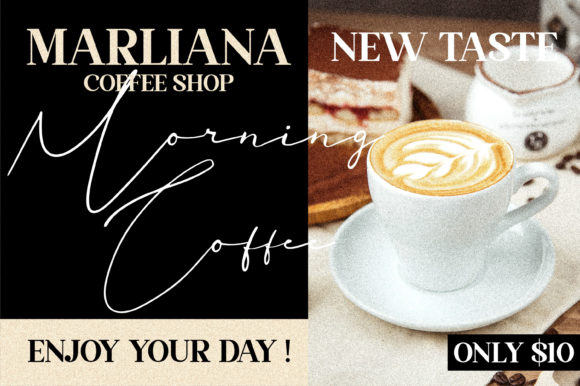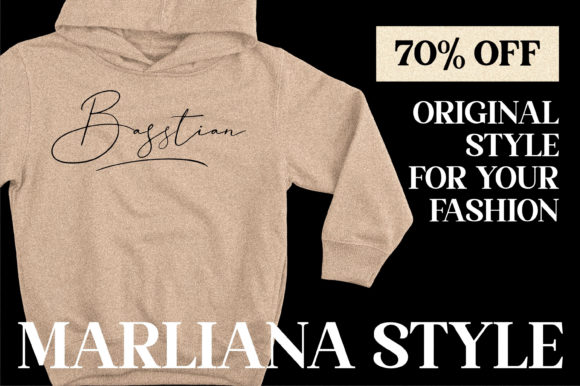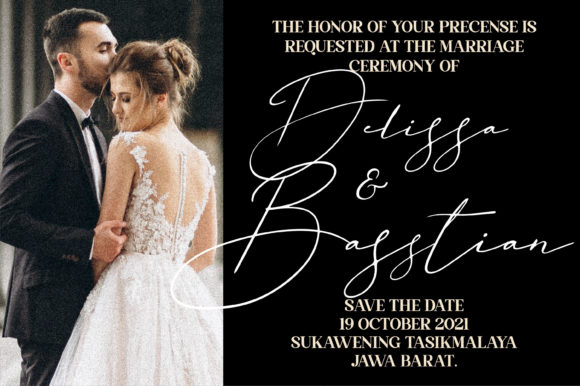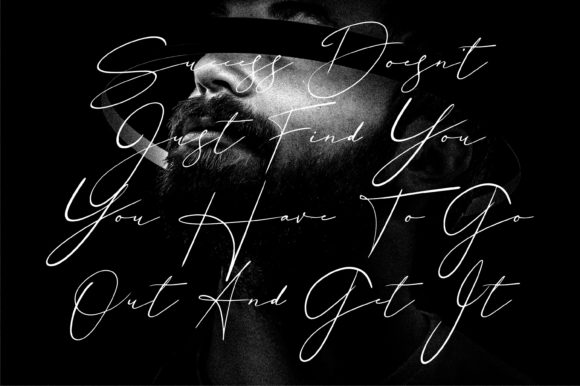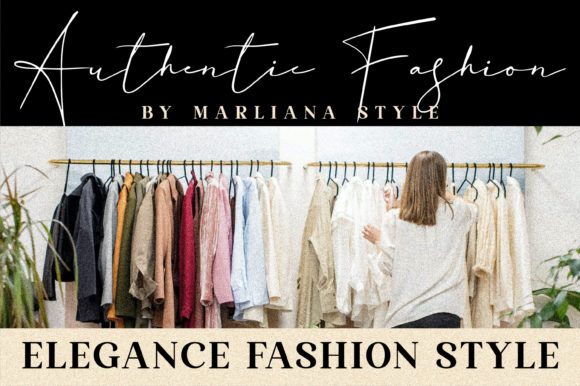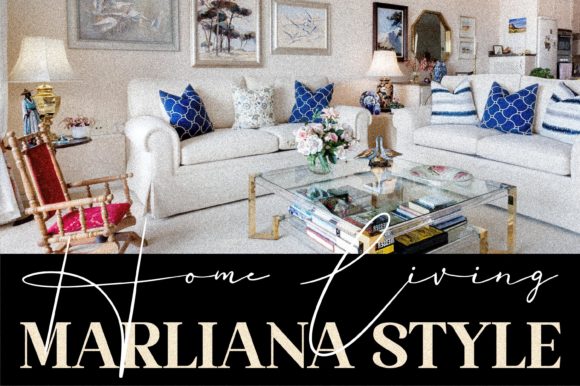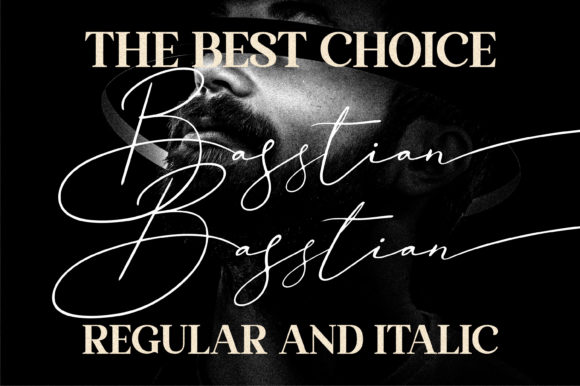
About Basstian Font
Basstian is a stylish and incredibly elegant script font. It looks stunning on wedding invitations, thank you cards, quotes, greeting cards, logos, business cards and every other design which needs a handwritten touch.